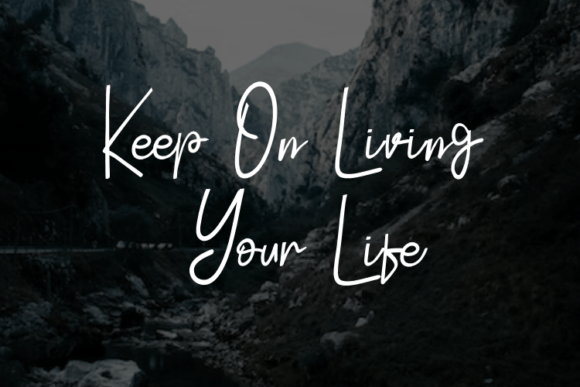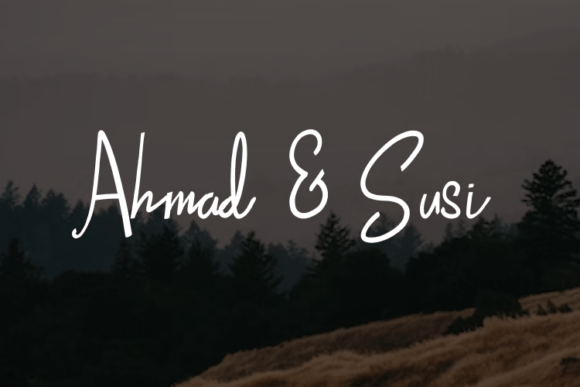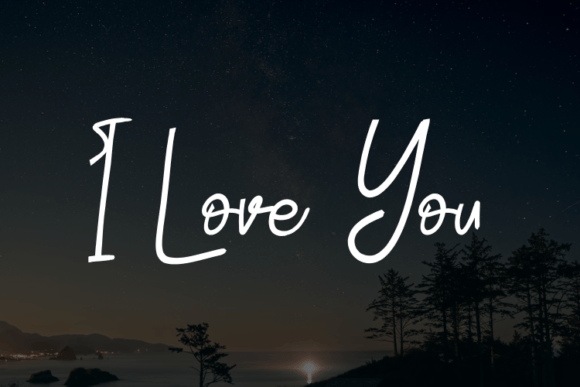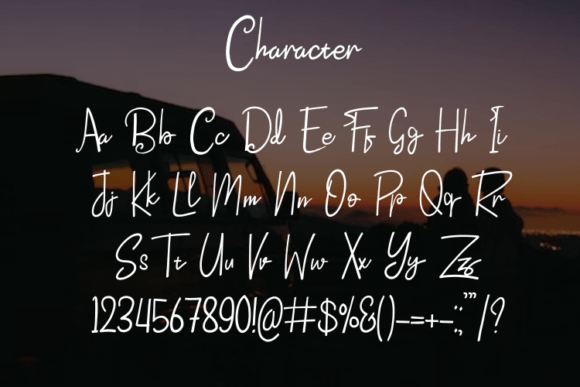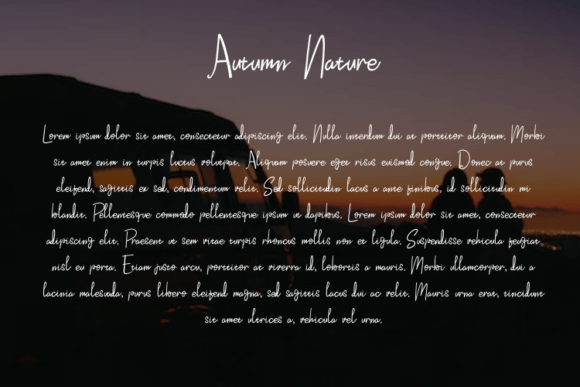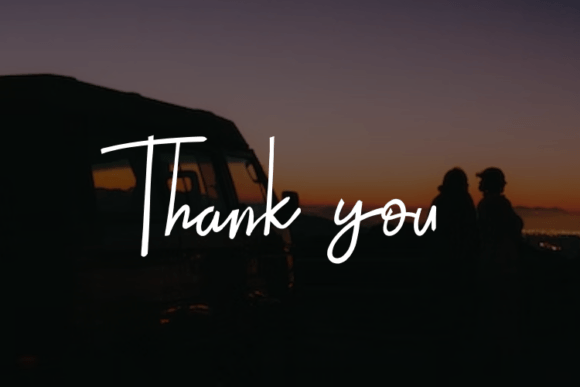
Unleashing the Magic of Autumn Nature Font
As the leaves start to change and the crisp air fills our lungs, many of us find ourselves lost in the beauty of autumn. It’s a time of year when creativity flows freely, and the world is painted in warm, earthy tones. For designers, this season is the perfect inspiration for new projects, and one typeface stands out as a must-have: Autumn Nature Font.
This elegant script typeface is more than just a pretty face – it’s a versatile tool for creating stunning logos, book titles, and magazine covers. Its modern look and simple style make it perfect for fashion brands, clothing labels, and quotes that need to make a lasting impression. Whether you’re a seasoned pro or just starting out, Autumn Nature Font is an invaluable addition to your design arsenal.
Autumn Nature Font Key Features
- Font Family: A unique, hand-drawn font family designed to evoke the feeling of autumn leaves and nature.
- Unique Characteristics: Features intricate, hand-drawn details and subtle texture, giving it a natural, earthy feel.
Autumn Nature Font Review
At first glance, Autumn Nature Font is a beautiful display font that captures the essence of fall. The designer has skillfully crafted a set of elegant characters that evoke a sense of coziness and warmth. ✨ The subtle texture and organic feel of the font make it perfect for designs that require a natural and earthy tone.
One of the standout features of Autumn Nature Font is its versatility. It can be used for a wide range of projects, from greeting cards to wedding invitations, and even signage. ✨ The font is highly customizable, allowing users to adjust the spacing, size, and color to suit their design needs.
- ⚠️ Limited character set: Autumn Nature Font is a display font and does not include a comprehensive character set, making it less suitable for body text.
- ⚠️ Not suitable for small text: Due to its elegant and organic design, Autumn Nature Font is best used in larger sizes to avoid readability issues.
Overall, Autumn Nature Font is a beautiful and highly customizable display font that is perfect for designs that require a natural and earthy tone. While it has some limitations, it is still a valuable addition to any designer’s toolkit. ✨
Yes, the Autumn Nature Font is a highly customizable font. You can adjust the font size, color, and style to fit your design requirements. Additionally, the font’s OpenType features allow for advanced typographic effects, such as ligatures and contextual alternates.